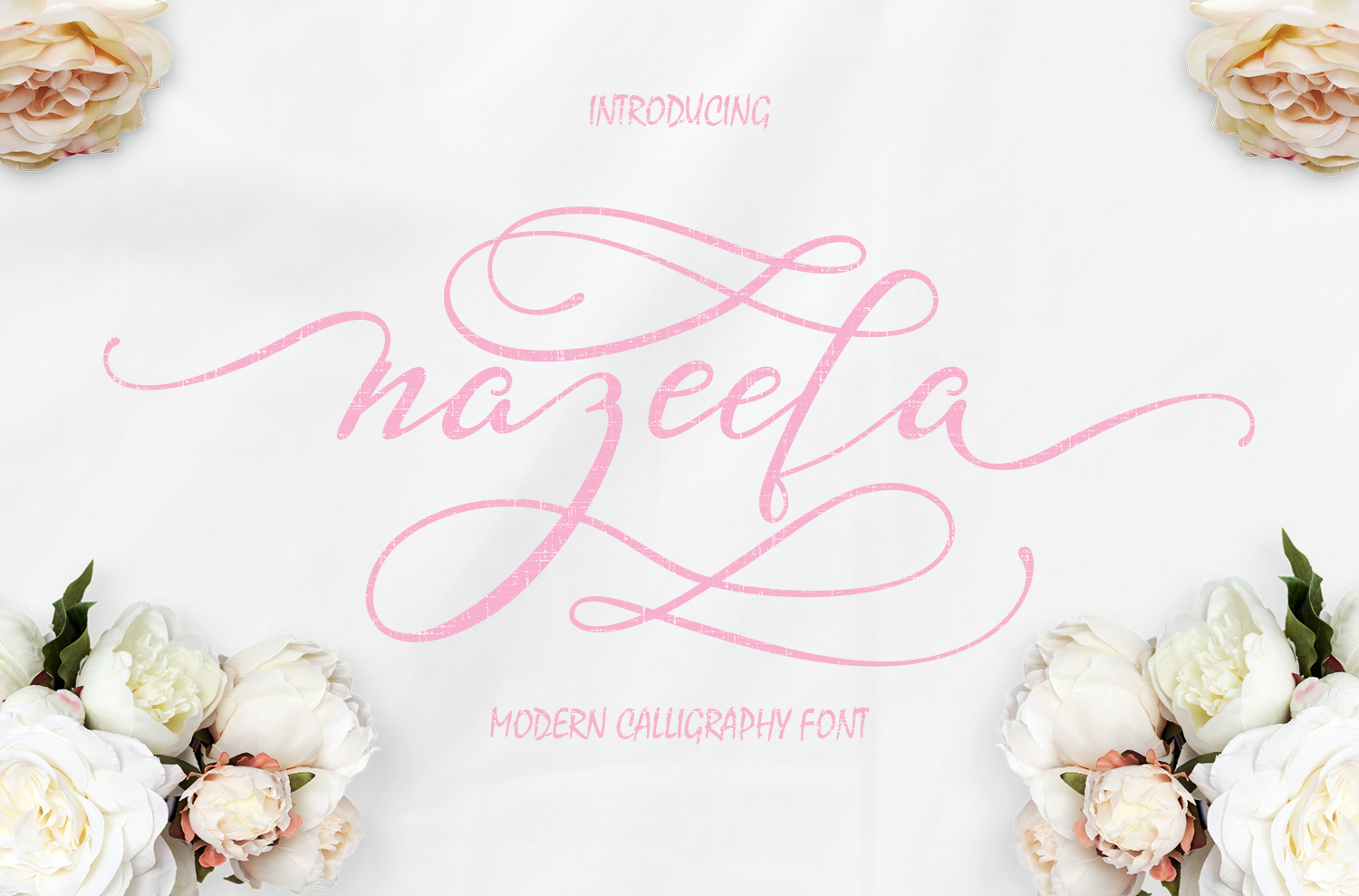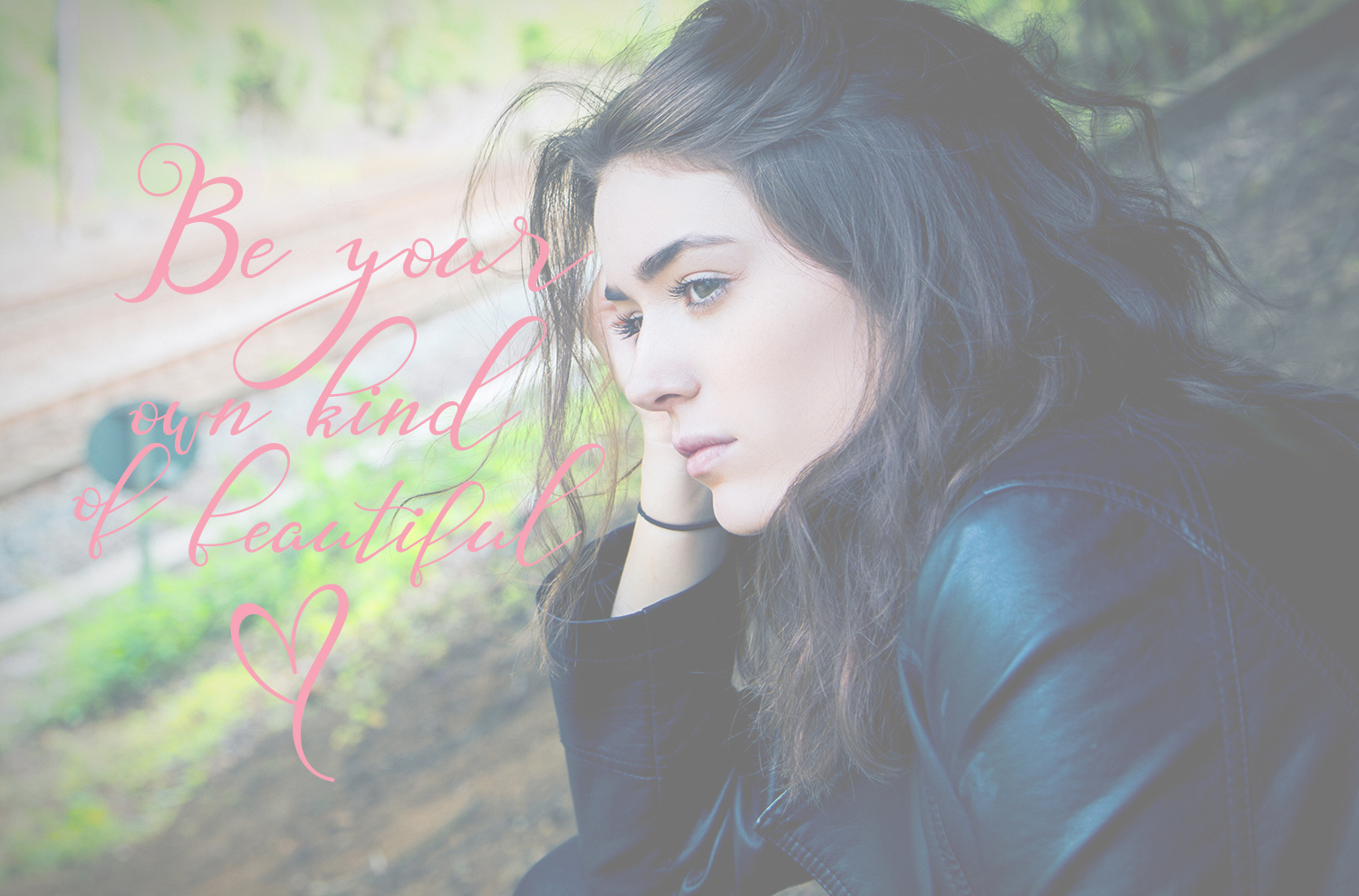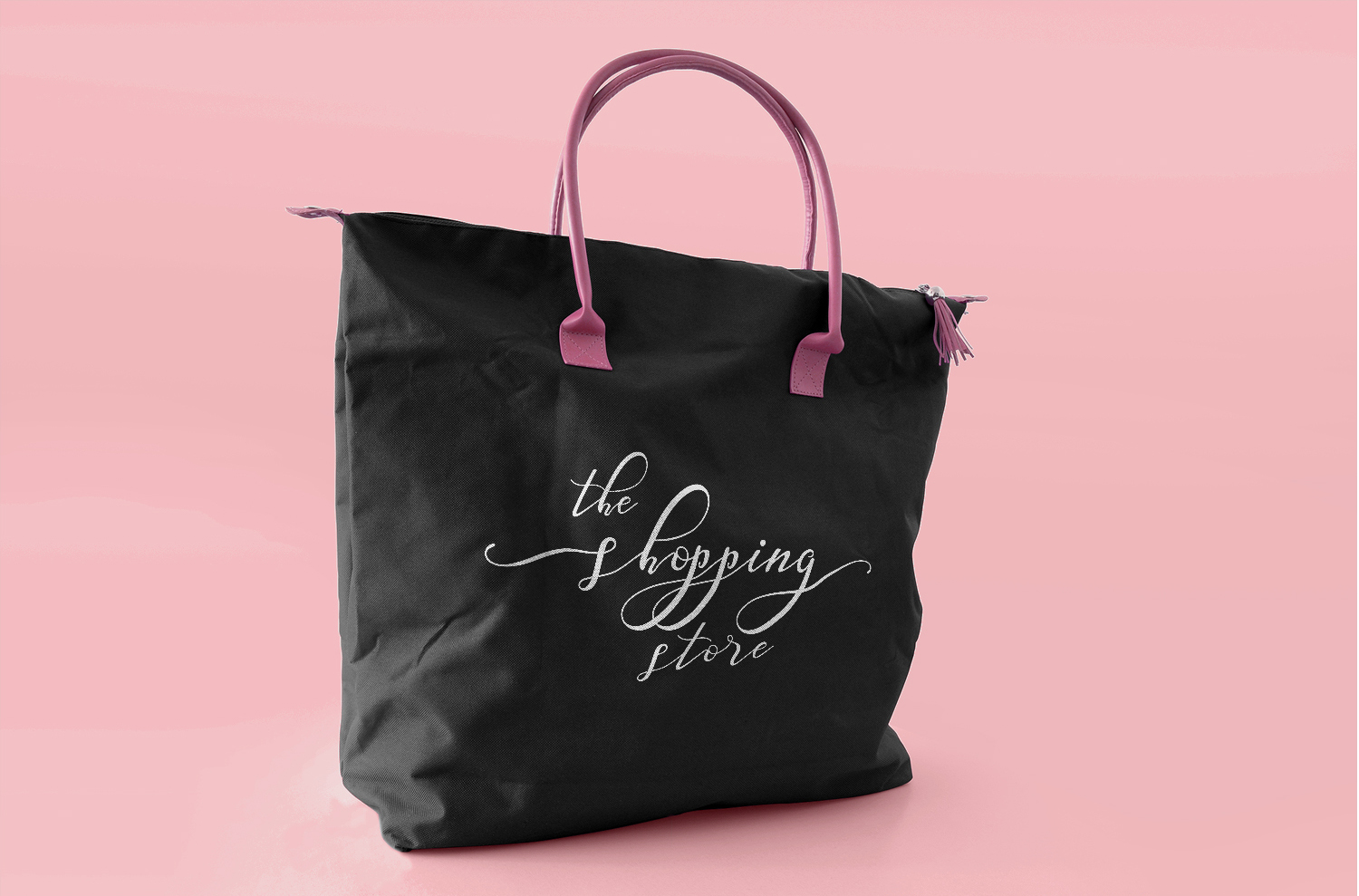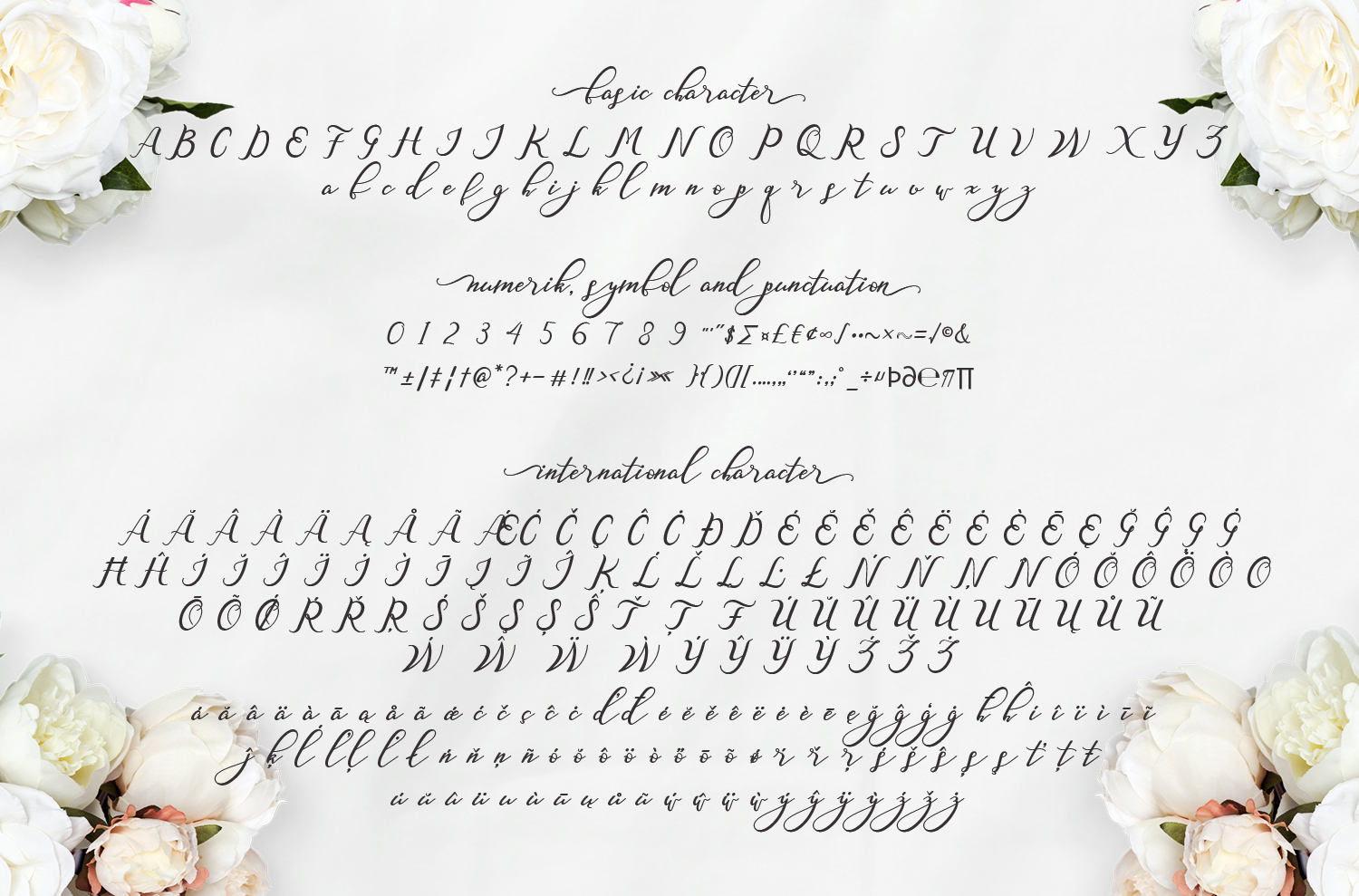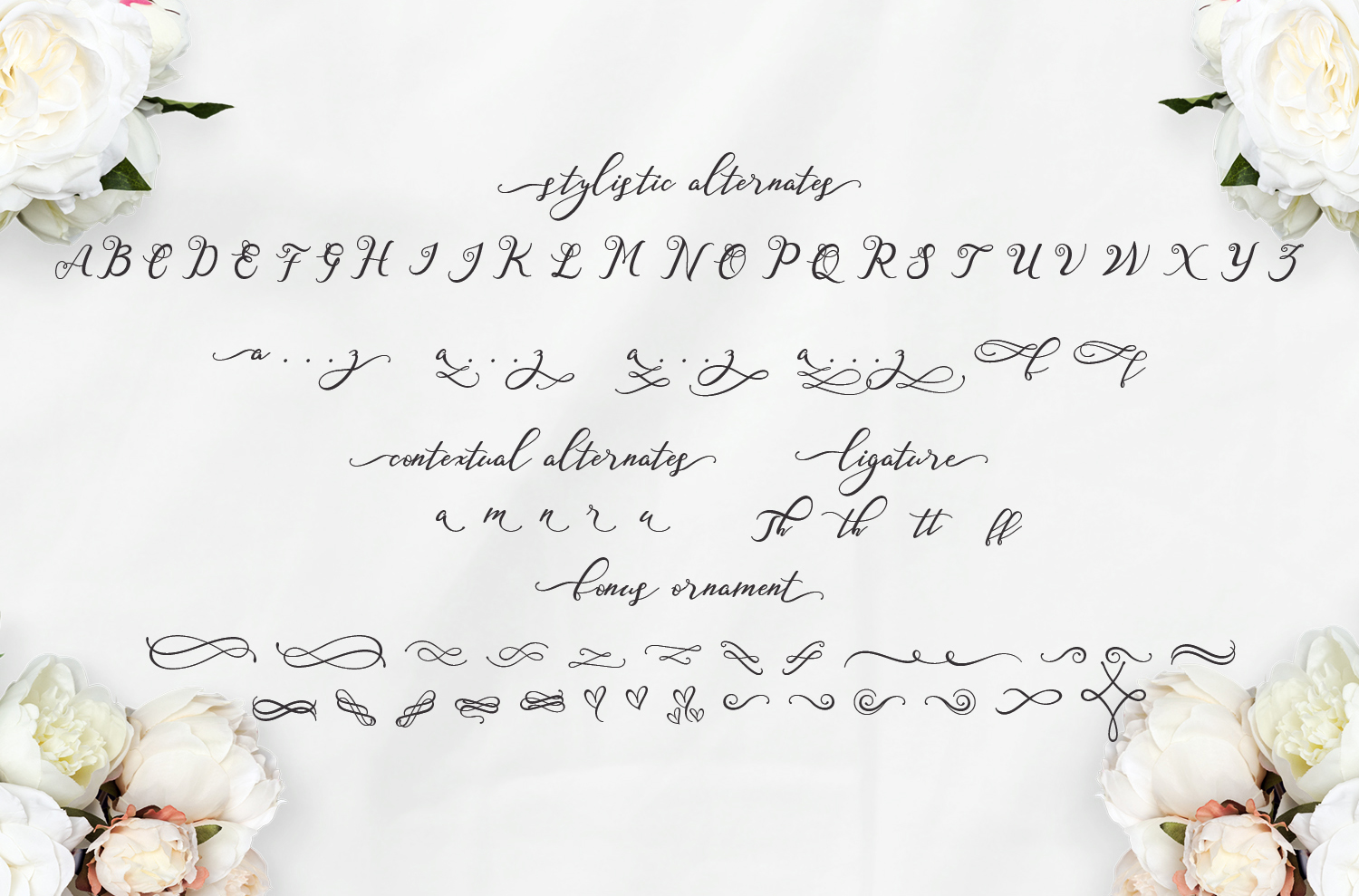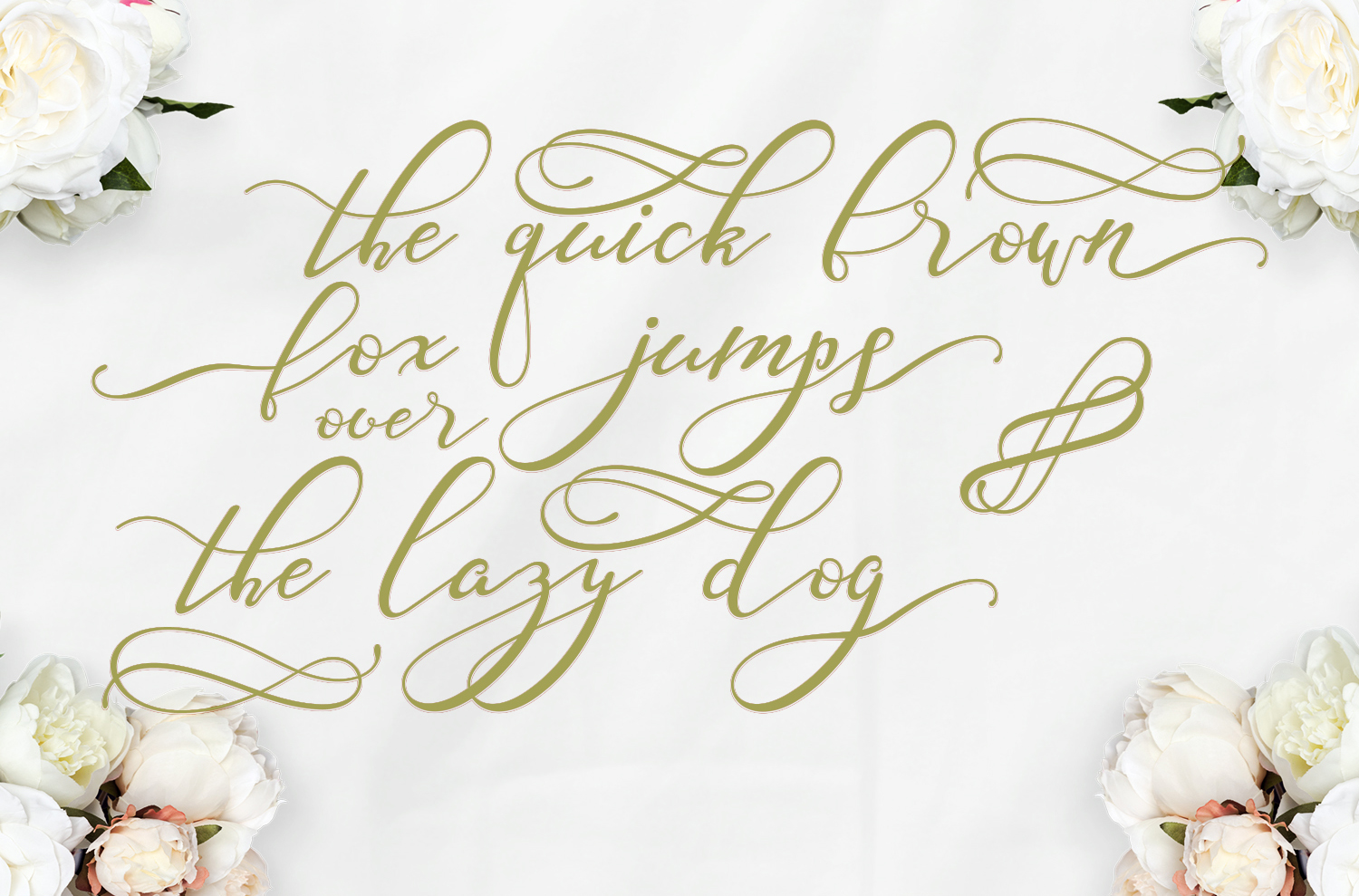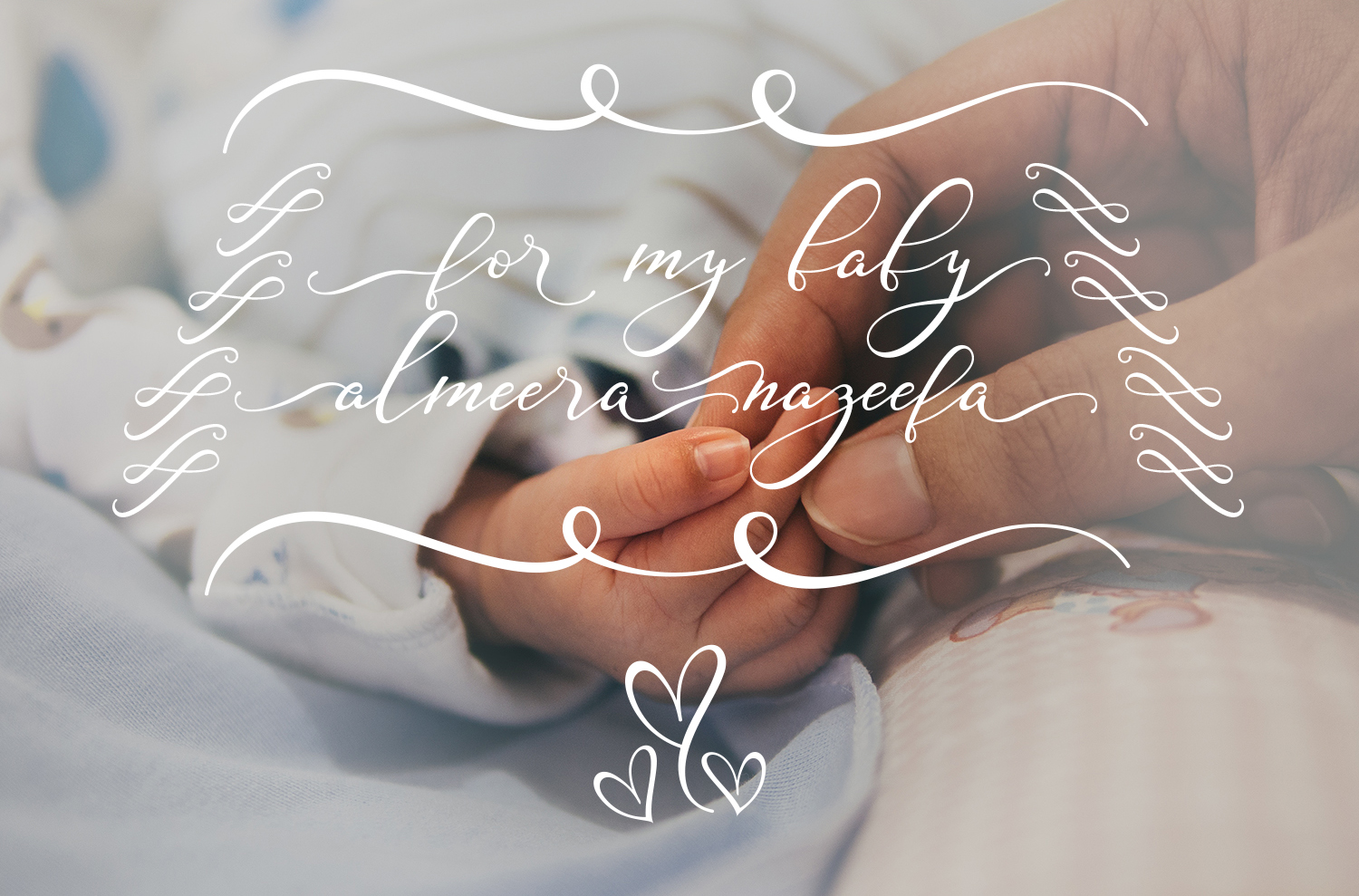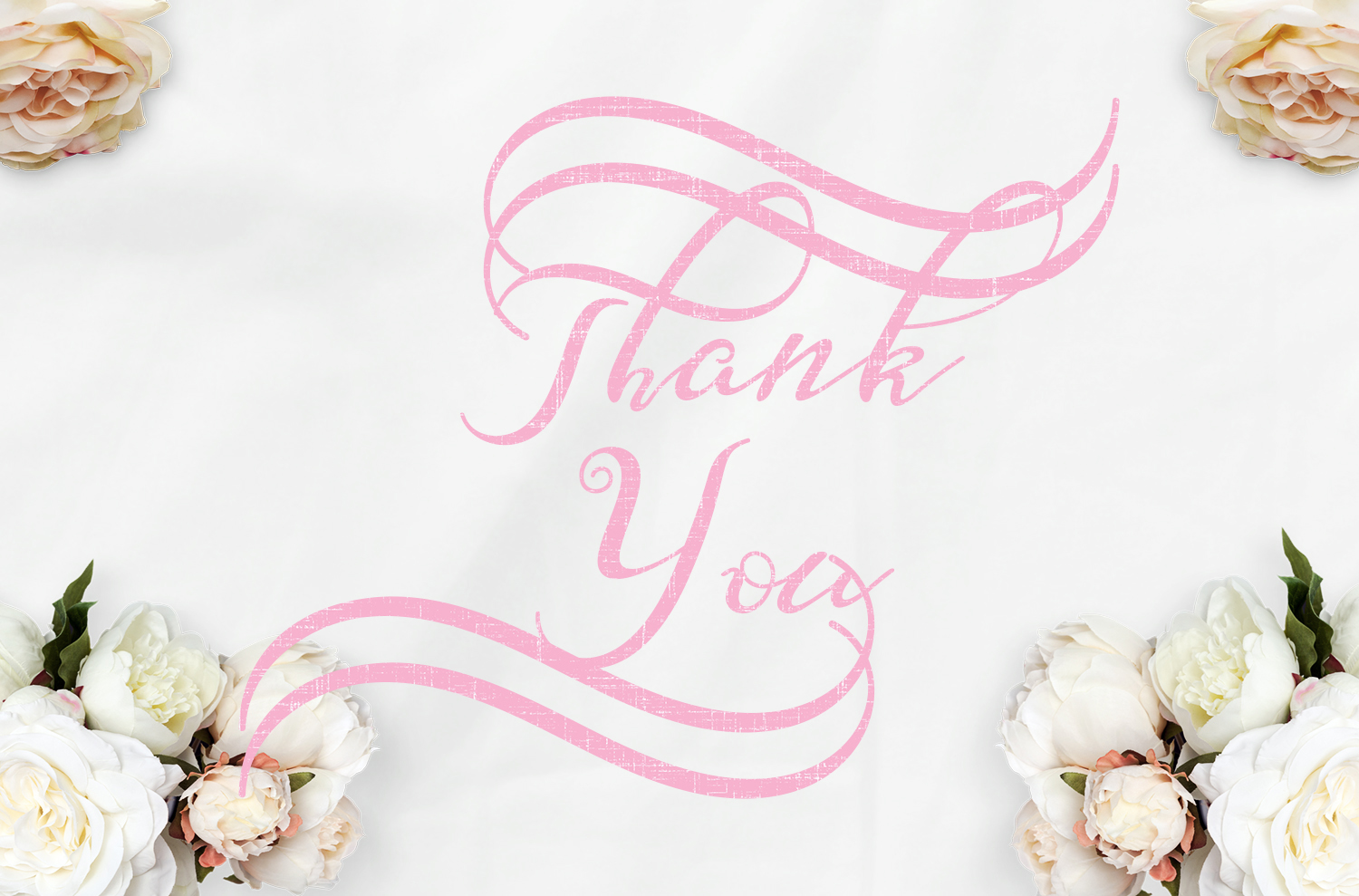
Nazeefa Script Font
About Nazeefa Script Font
Nazeefa is a modern calligraphy typeface that has is filled with lot’s of stylistic sets.
This feminen font can be used for a large range of projects.